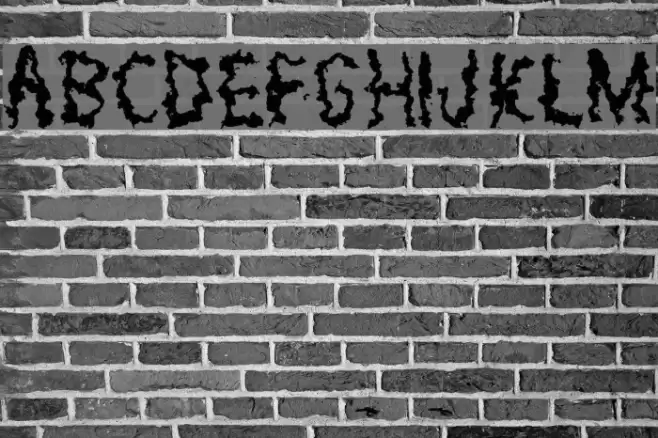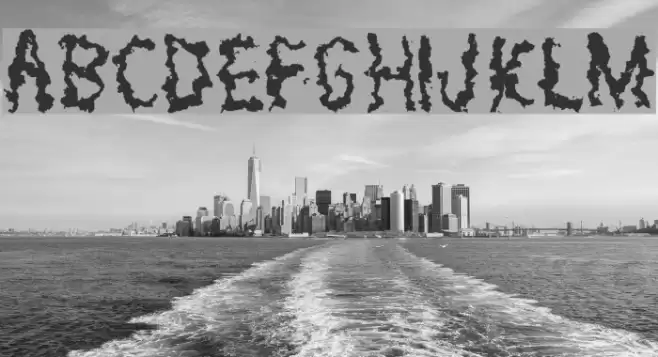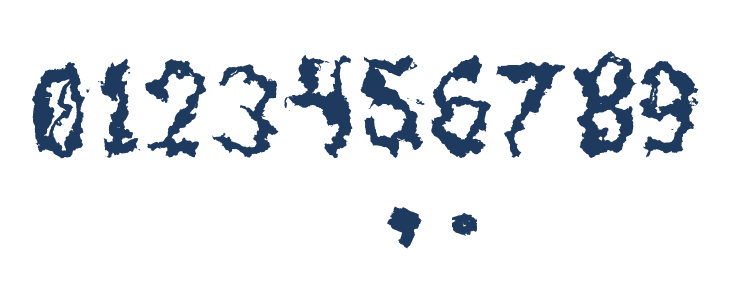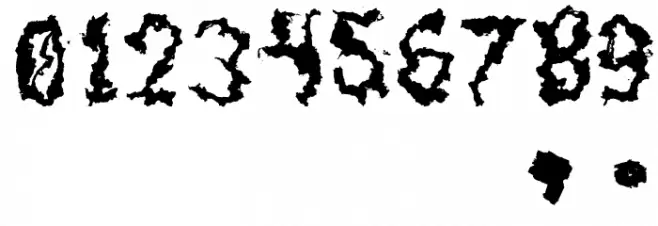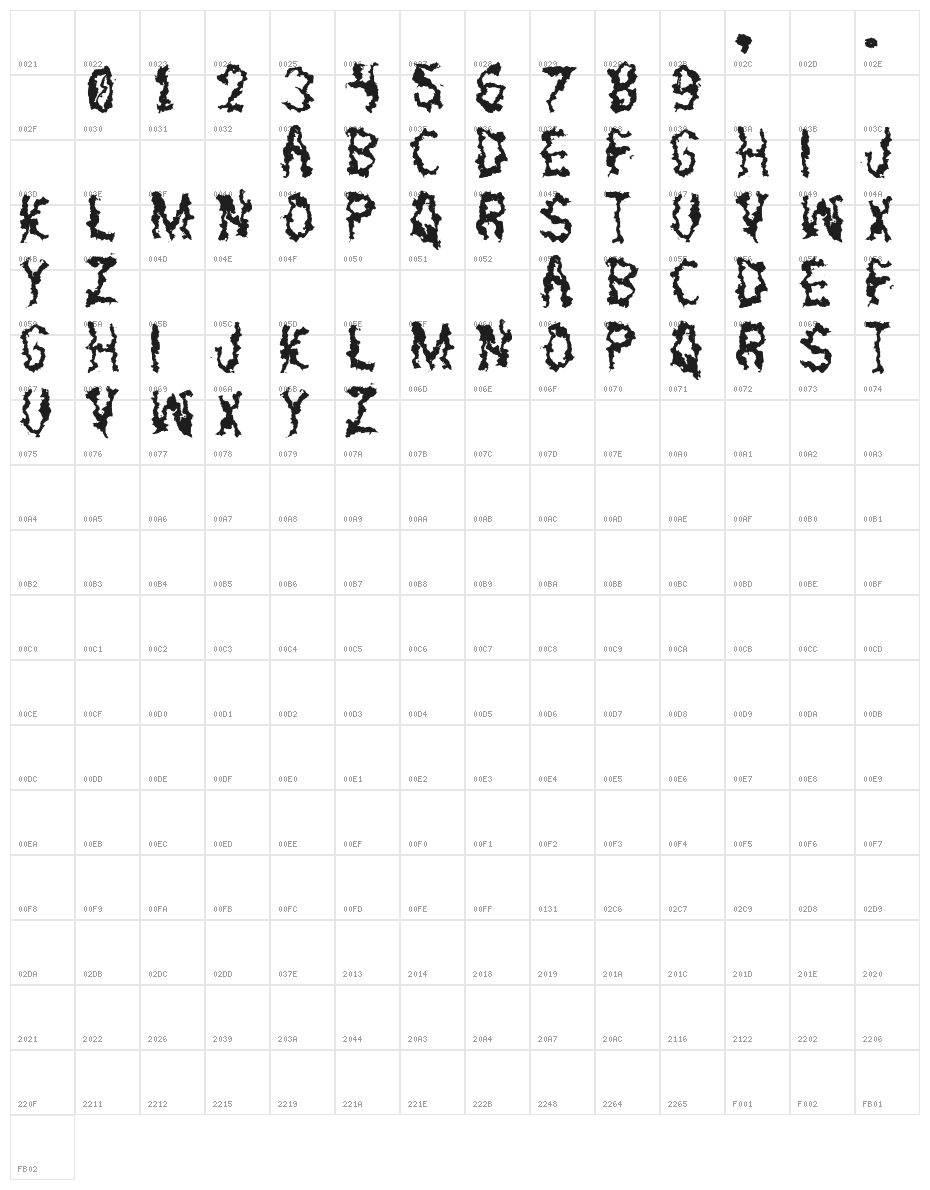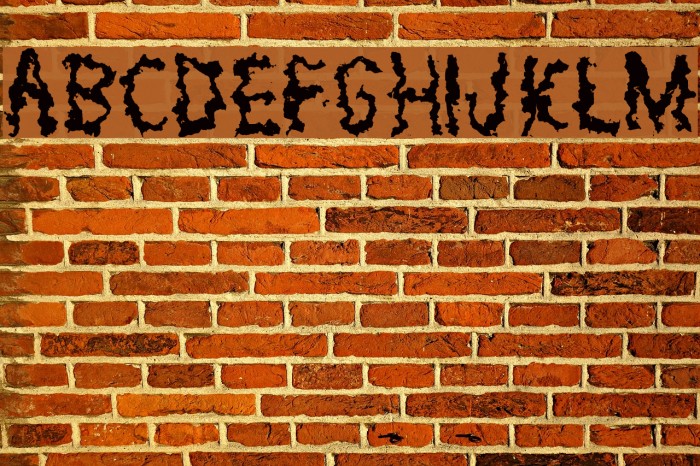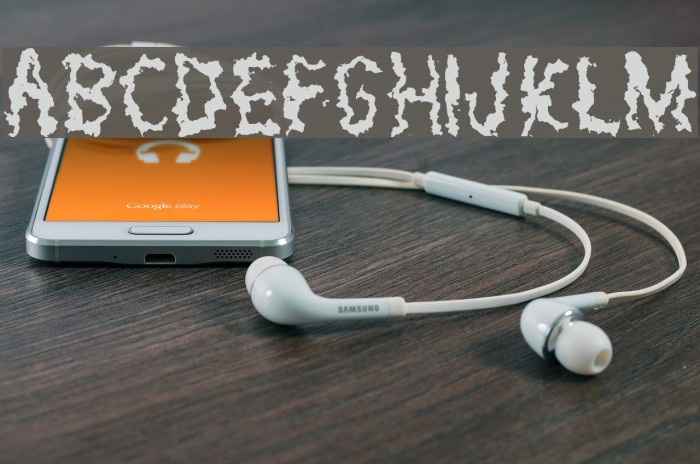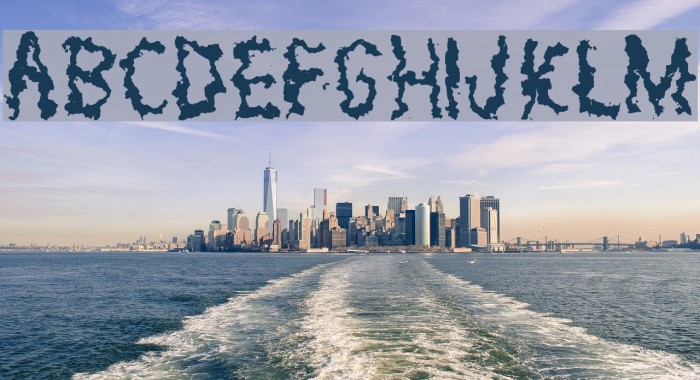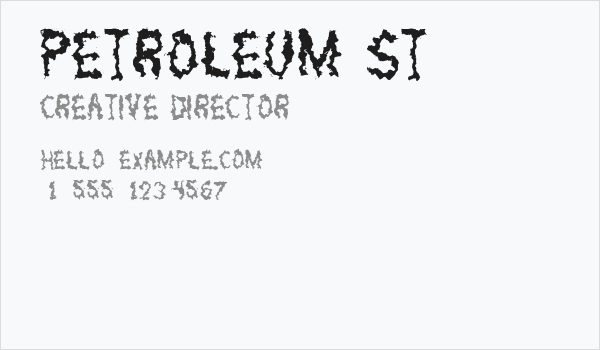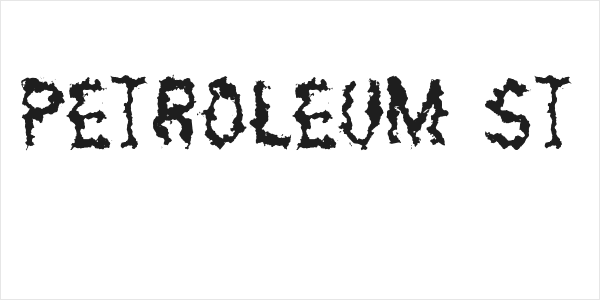
Petroleum St Font
Petroleum St Description
This font features a highly textured and rugged appearance, reminiscent of oil spills or rough, natural surfaces. The characters are bold and irregular, with jagged edges and uneven strokes that give them a distressed and organic feel. The uppercase and lowercase letters maintain this rugged style, creating a cohesive look across the alphabet. Numbers and special characters follow the same design principles, ensuring consistency throughout. The font's unique style makes it stand out, ideal for projects that require a bold and unconventional aesthetic.
A bold, textured font with a rugged, distressed appearance from Uncategorized fonts.
- Proposed Projects: Ideal for environmental campaigns, edgy branding, album covers, or any project needing a bold, unconventional look.